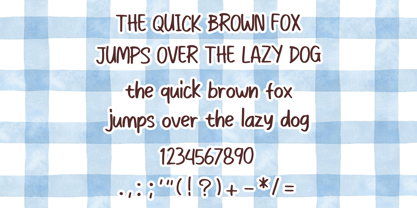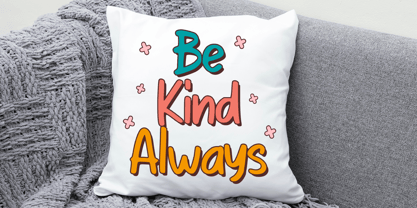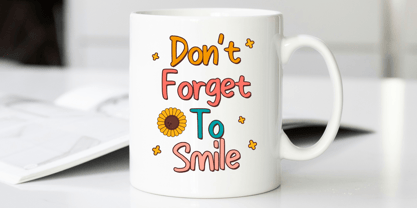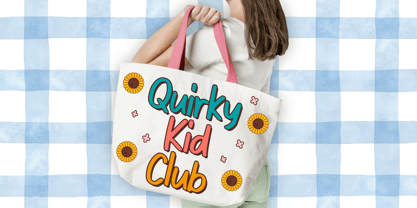
Baby Magic
by Mvmet
The Baby Magic Font Family was designed by Gabriel Valentinus and published by Mvmet. Baby Magic contains 1 styles.
Baby Magic is a fun, playful and cute comic font that you can use for many designs themes. It will elevate a wide range of design projects to the highest level. You can use this font for many design ideas such as stickers, t-shirt designs, amazing logo designs, magazine or book covers, comics, cartoon drawings, daily typing, and many more. This font will add a super cool touch to your designs!
Baby Magic